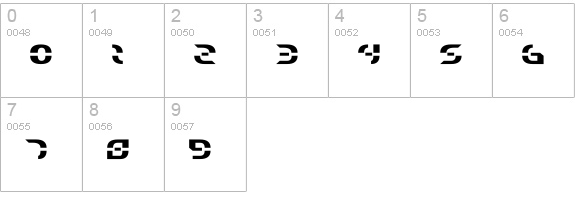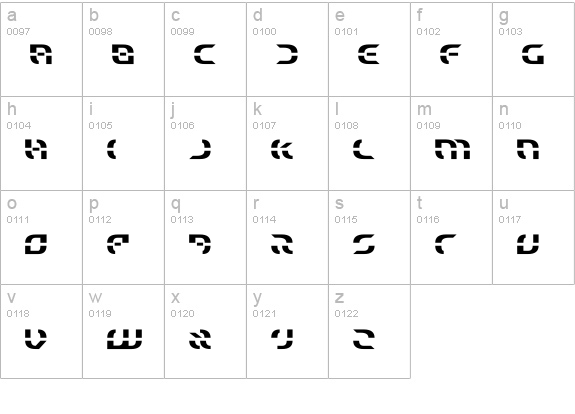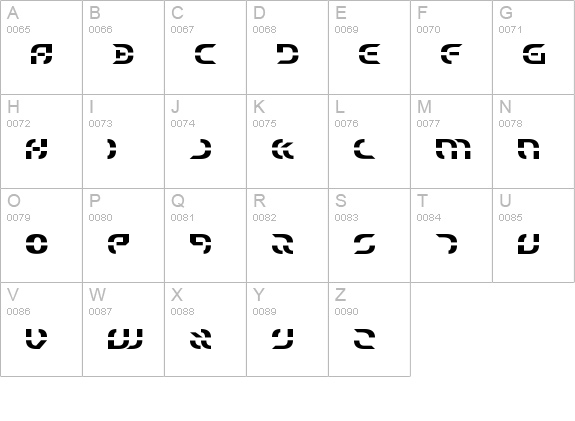
Introducing Starfighter font, a stunning display typeface that will take your designs to new heights. With its sleek and futuristic design, this font is the perfect choice for any project that needs a touch of modern elegance. Starfighter font is not only visually captivating, but it also offers a wide range of versatility. Whether you're designing a logo, creating eye-catching headlines, or crafting attention-grabbing posters, this font will surely make a statement. What's even better is that Starfighter font is free! Yes, you heard that right. This incredible typeface is freely available to download at FontsMarket.com. Now you can bring your creative visions to life without breaking the bank. With its clean lines and sharp edges, Starfighter font exudes a sense of sophistication and professionalism. It is an excellent choice for projects in the fields of technology, gaming, science fiction, and more. Its bold and distinctive characters will capture attention and leave a lasting impression on your audience. This font also comes with a variety of special characters, punctuation marks, and numerals, allowing you to add a unique touch to your designs. Whether you're going for a futuristic look or a sleek and minimalistic feel, Starfighter font has got you covered. So why wait? Elevate your design game with Starfighter font. Download it for free at FontsMarket.com and unlock a world of possibilities for your creative endeavors. Don't miss out on this incredible opportunity to add a touch of elegance and uniqueness to your projects. Get Starfighter font today and let your creativity soar to new heights.